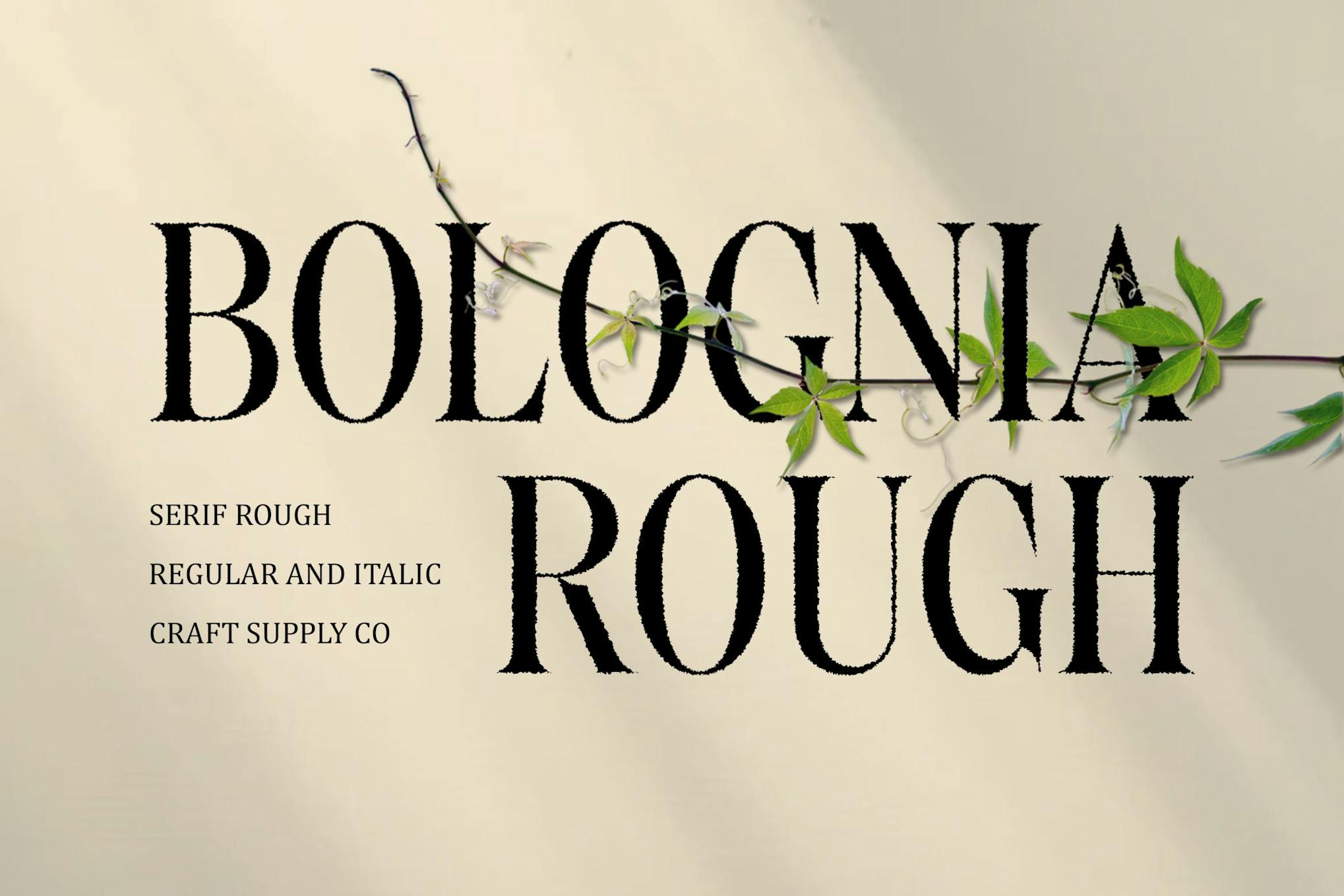
Bolognia Rough Font
Bolognia Rough Font is perfect for vintage brewery branding, distressed logo design, rustic packaging projects, weathered signage systems, grunge poster art, industrial branding elements, retro merchandise design, aged typography effects, and authentic vintage advertising campaigns.
What makes Bolognia Rough Font exciting is its authentic weathered texture that captures decades of natural wear and aging with remarkable realism. This distinctive typeface features carefully crafted erosion patterns, irregular edges, and ink-bleed effects that tell a story of time and character. The font's organic imperfections create visual depth and tactile quality that modern designs often lack, instantly transforming contemporary projects into convincingly aged masterpieces that resonate with nostalgia and authenticity.
Bolognia Rough Font family includes multiple distress levels: Light Rough, Medium Rough, Heavy Rough, Grunge, Aged, and Clean Base versions. Each variation maintains the core character design while offering different degrees of weathering intensity, allowing designers to customize the vintage aesthetic to match their project's specific mood and requirements.
The Bolognia Rough Font Free Download delivers premium distressed typography that eliminates the need for additional aging effects or textures. This font excels in projects requiring authentic vintage appeal, including craft breweries, artisanal food brands, vintage clothing lines, and heritage organizations. The realistic wear patterns create instant credibility and emotional connection with audiences seeking genuine, handcrafted experiences.
Creative professionals appreciate Bolognia Rough Font for its ability to convey history and craftsmanship through typography alone. The varied distressing across individual letters creates natural rhythm and prevents repetitive patterns that might reveal digital origins. Its robust construction ensures readability despite heavy texturing effects.
The comprehensive character set includes period-appropriate symbols, decorative elements, and multilingual support that enhances the vintage aesthetic. Bolognia Rough Font Free Download enables designers to experiment with layering techniques, color applications, and creative combinations before purchasing.
Whether used for heritage brand restoration or modern vintage-inspired campaigns, Bolognia Rough Font consistently delivers authentic aged typography that captures the essence of traditional craftsmanship and timeless design principles.